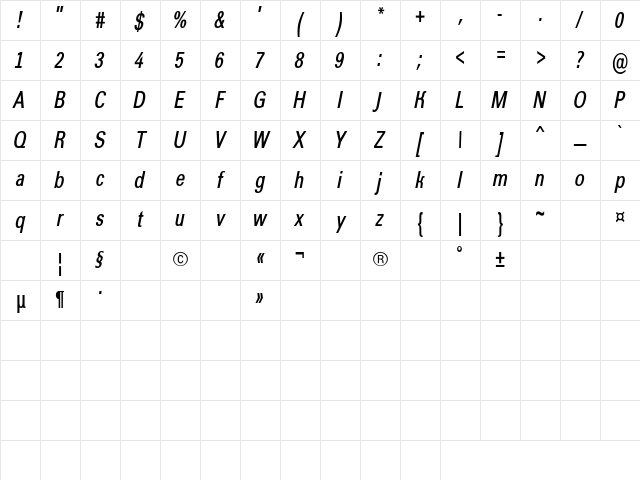
a_GroticCnDemi is a composed and adaptable typeface that performs quietly and consistently across a wide range of design contexts. The slanted form adds forward momentum and visual energy.
Pro Tip: Use a_GroticCnDemi for emphasis, pull quotes, and subheadings where its slanted energy can add rhythm to the layout.